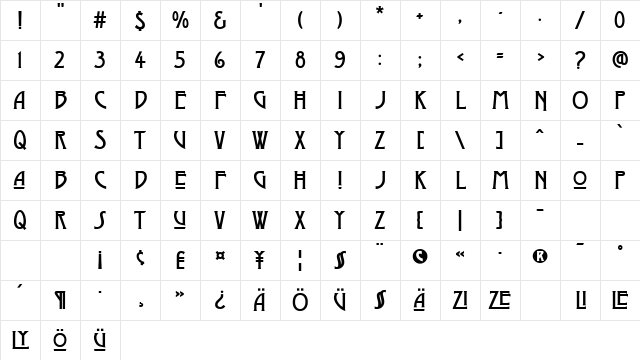
Complete Dyer Arts and Crafts Normal glyph index. Displaying only characters natively supported by Dyer Arts and Crafts Normal font.
Dyer Arts and Crafts is a composed and adaptable typeface that performs quietly and consistently across a wide range of design contexts.